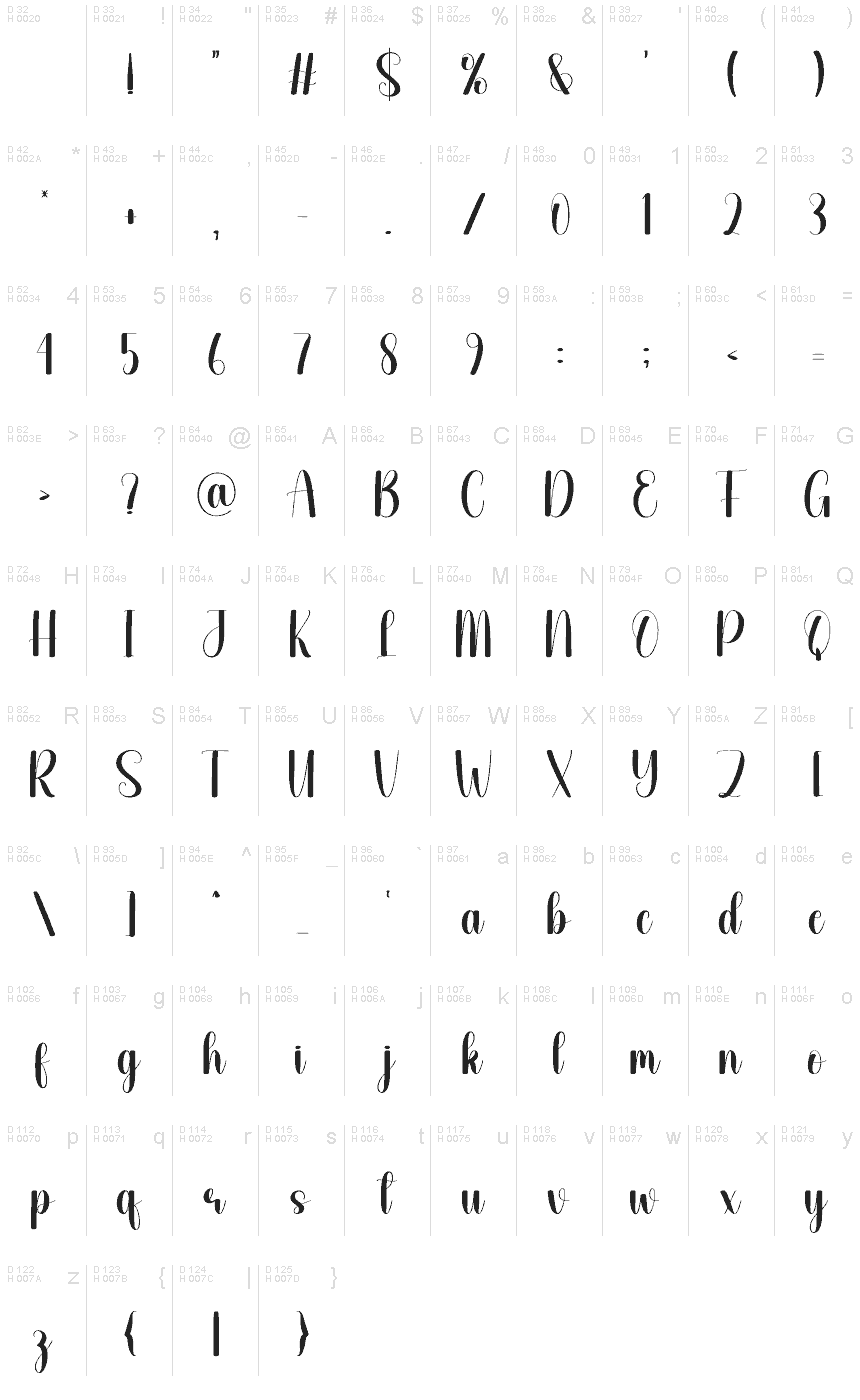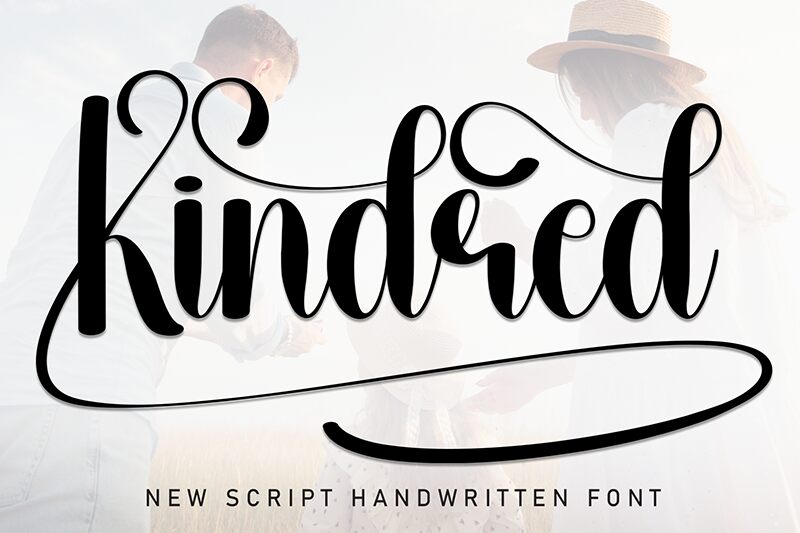
Kindred
Kindred font by Andi Moz is a condensed calligraphy font, a modern script with an elegant style and casual sophistication. Expressive of nature, its ability to move normally, yet delicately across the surface gives it the resemblance of perfection. Its thin long strokes are stylish and continuous giving off an exquisite feel but also joyful and passionate.
Use the flowing free calligraphy font in typography projects that focus on display such as logos, quotes, stickers, etc. It can also be used for invitations to special occasions like weddings and parties alongside wall art workbooks or magazine covers.